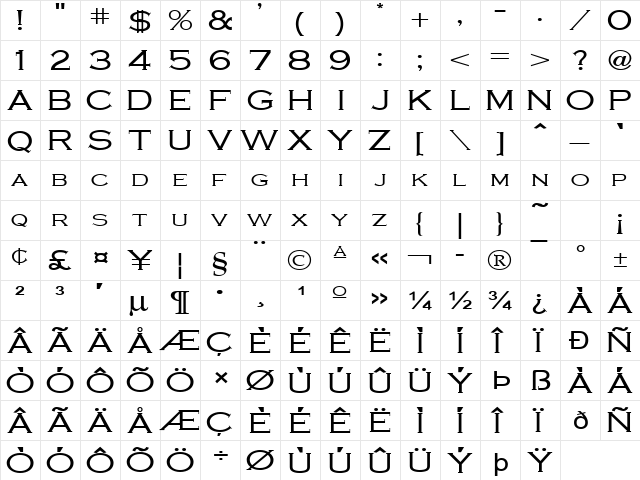
Cobalt-Extended Normal
Design Context for Cobalt-Extended Typeface
Cobalt-Extended takes a measured approach to typography — its balanced proportions and neutral character make it a reliable workhorse for both digital and print work.